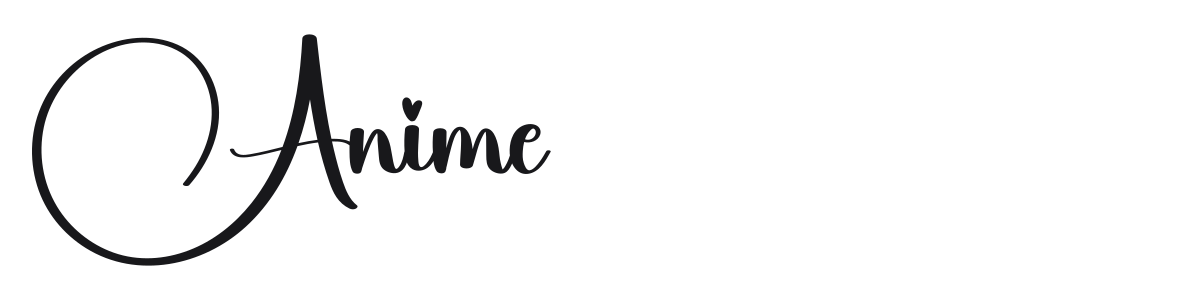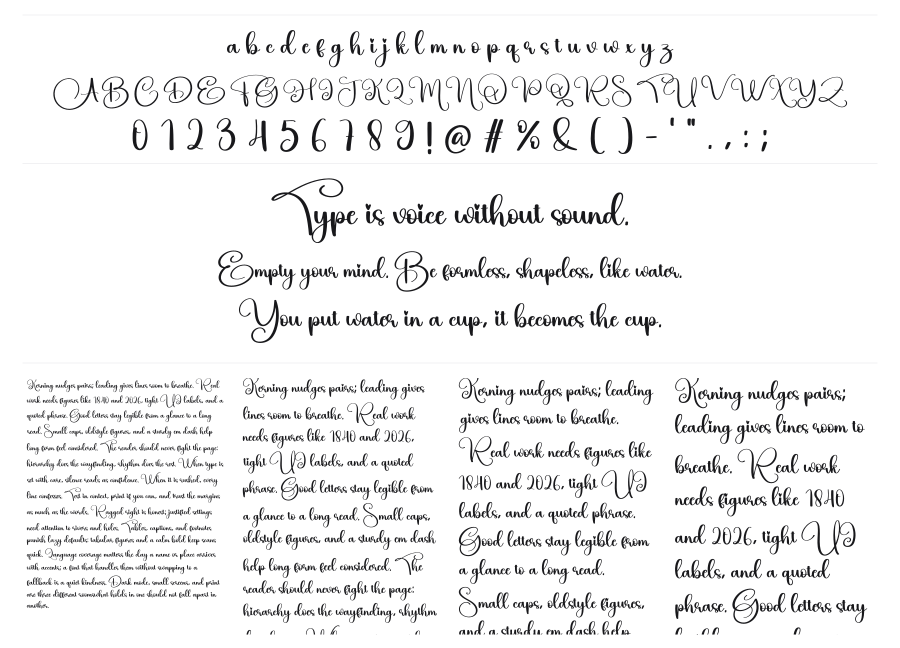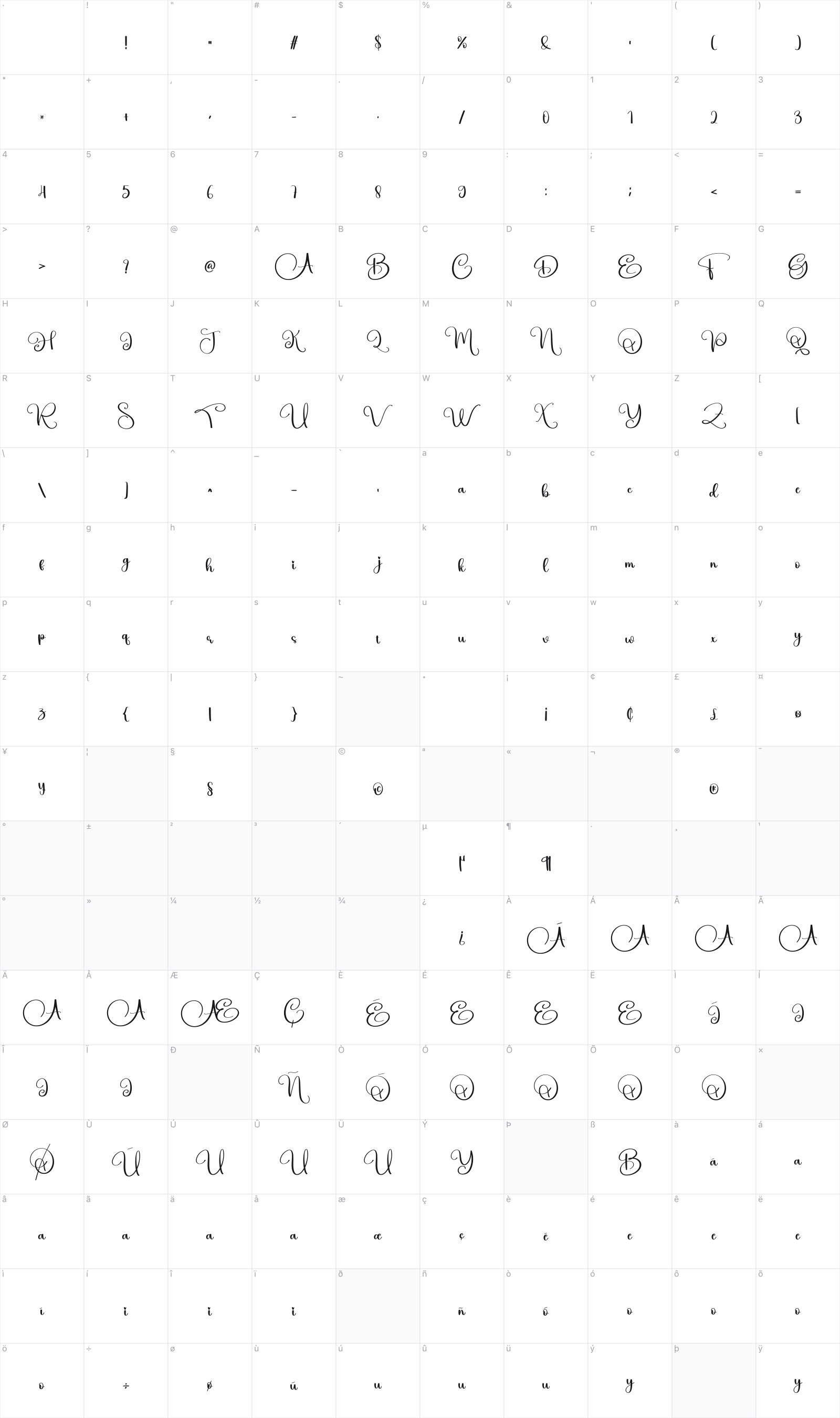
Anime
Anime is a casual connected script with a lively, bouncy baseline and warm rounded strokes. Small decorative touches, like the heart accent, give it a sweet romantic personality that sits comfortably between playful and elegant. It reads well at large sizes for invitations, branding, and social media graphics.